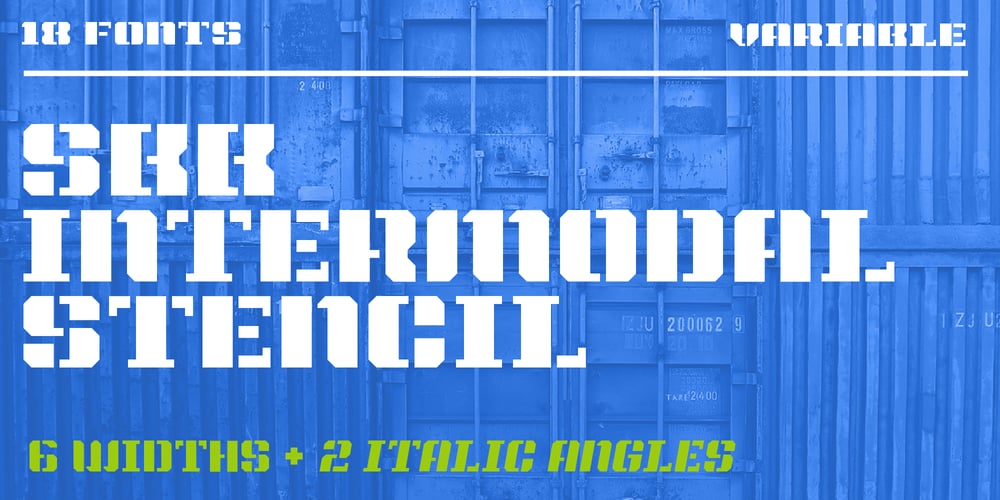
SbB Intermodal Stencil
SbB Intermodal Stencil font
SbB Intermodal Stencil Font Family was designed by Bob Wertz and published by Sketchbook B. SbB Intermodal Stencil contains 19 styles and family package options. Inspired by stenciled lettering on crates and shipping containers, Intermodal is a 18-typeface family consisting of six widths and corresponding italics in two different angles. Intermodal uses only vertical stencil cuts— creating a dynamic rhythm and a unique, industrial feel. The variable font allows for customization of weight, slant and stencil opening size. 18 fonts Six widths: A-F Regular and two different oblique angles Tabular Opentype Numbers and an alternate “9” Variable font allows you to change weight, slant and stencil opening size